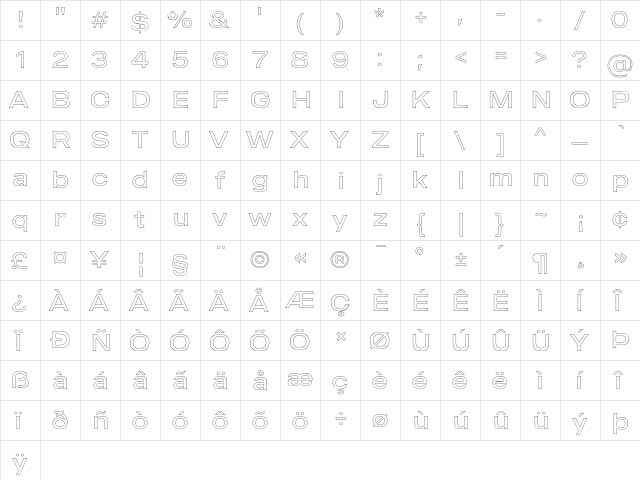
MADE Outer Sans Outline Light
Design Context for MADE Outer Sans Outline Typeface
MADE Outer Sans Outline is built around its visual character rather than neutral utility — its distinctive forms are designed to make an impression at display sizes. Its slender proportions lend an understated elegance to any composition.
Font Pairing: Pair with a clean neutral sans-serif for body copy to let MADE Outer Sans Outline's character lead without overwhelming the composition.
Pro Tip: Use MADE Outer Sans Outline exclusively at display sizes — it was designed to be seen, not read at length. Let a neutral companion handle body copy.